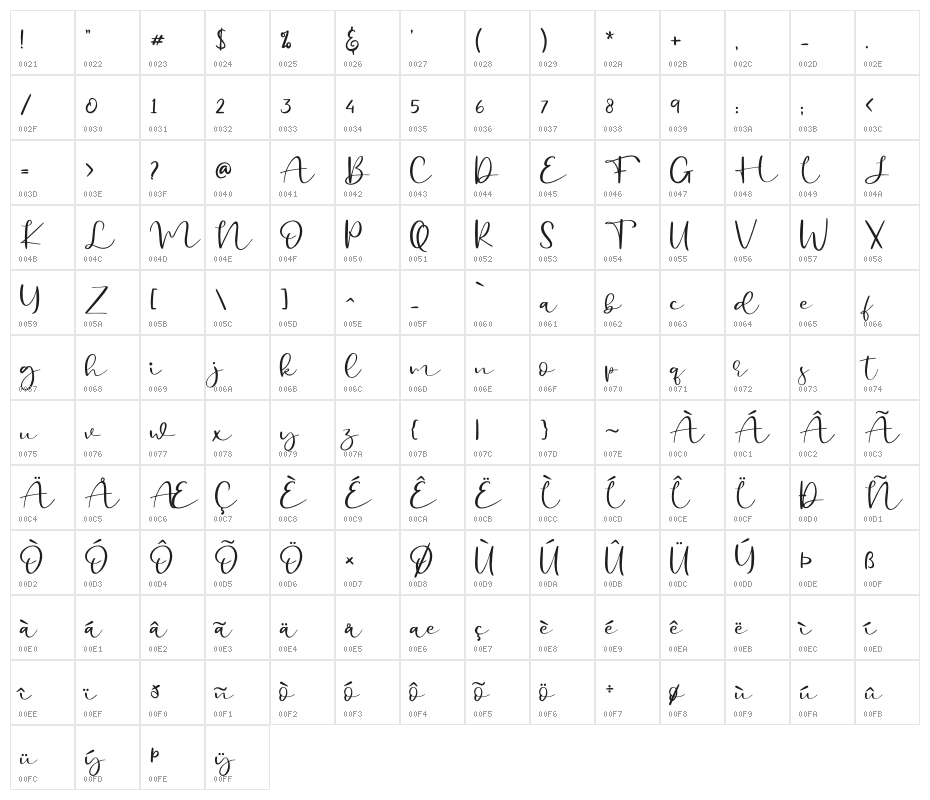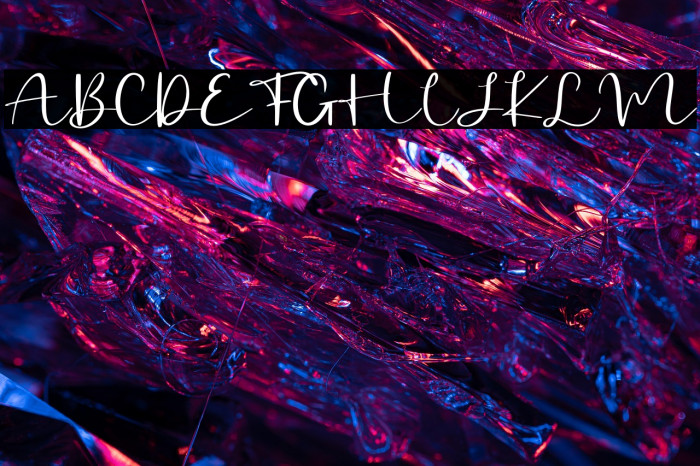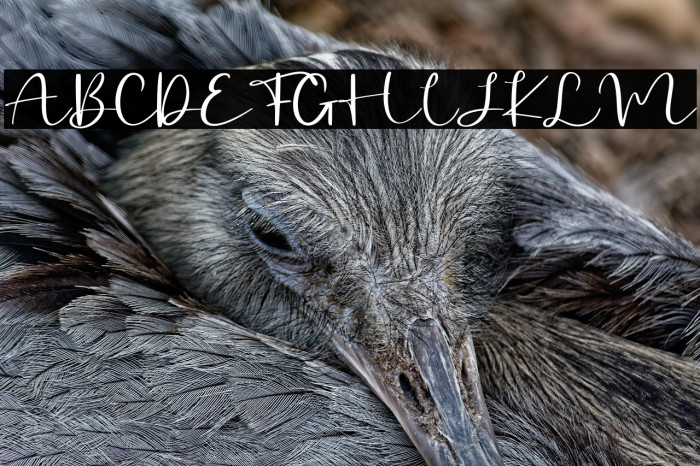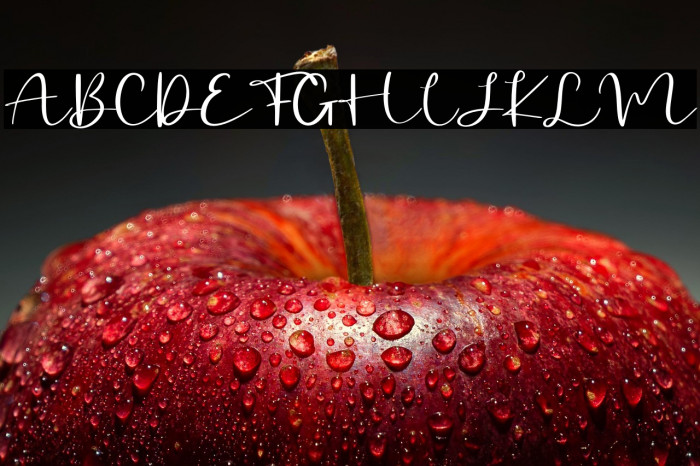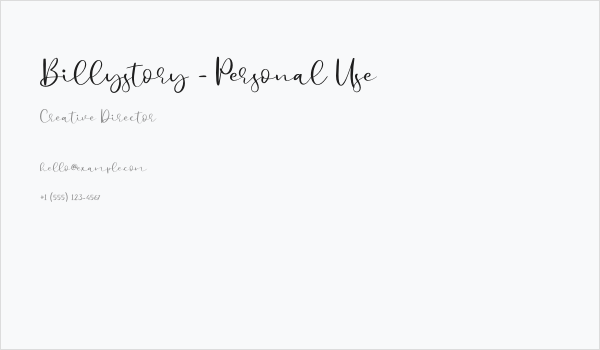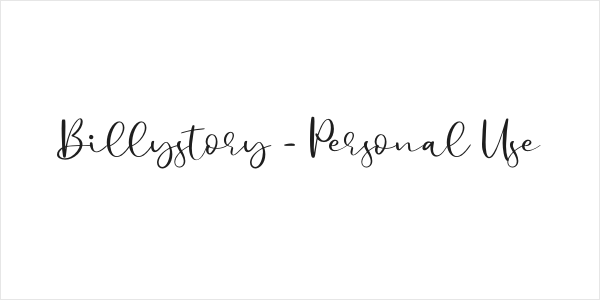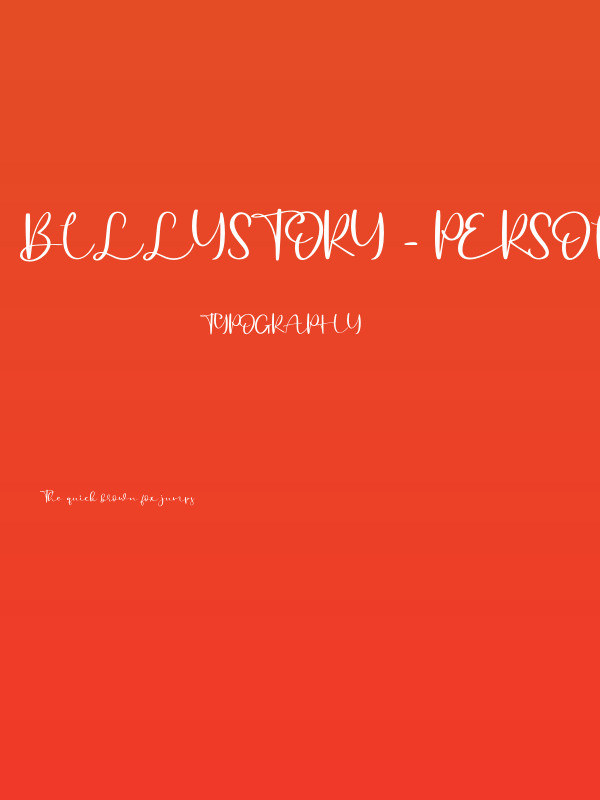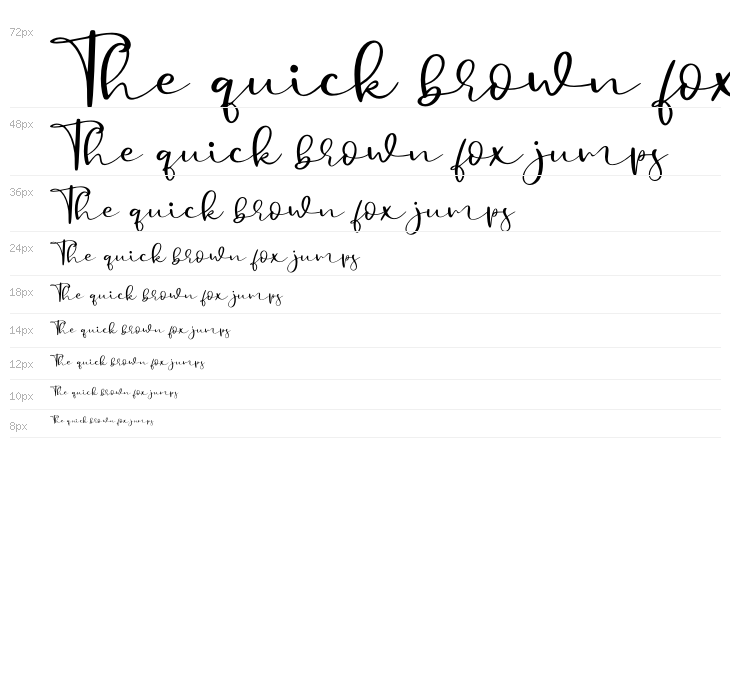
Billystory - Personal Use Font
Billystory - Personal Use Description
This font features a flowing, cursive style with elegant loops and swirls, giving it a handwritten appearance. The uppercase letters are bold and expressive, while the lowercase letters maintain a consistent fluidity, enhancing the script's overall charm. The numbers and special characters are designed to complement the letters, maintaining the same graceful aesthetic. This font is perfect for projects that require a personal, artistic touch, such as invitations, greeting cards, or branding materials.
| Proposed Projects | Ideal for wedding invitations, greeting cards, personal branding, and artistic projects. |